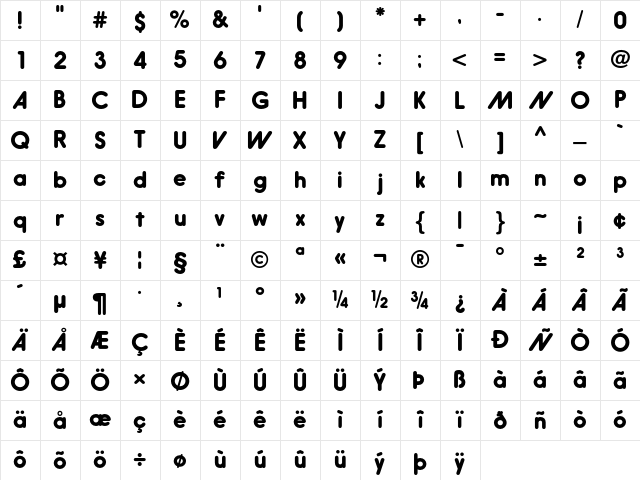
Hiruko Pro Alternate Bold Free Font
Hiruko Pro Alternate Bold
Foundry: Thinkdust
Designer: Alex Haigh
Design Context for Hiruko Pro Alternate
Hiruko Pro Alternate is a composed and adaptable typeface that performs quietly and consistently across a wide range of design contexts. Its bold stroke weight gives it real presence on the page.